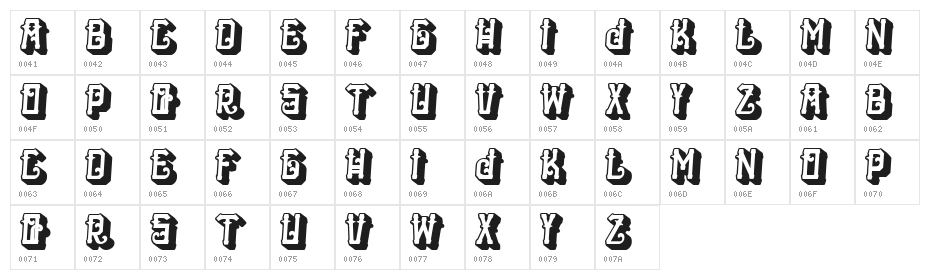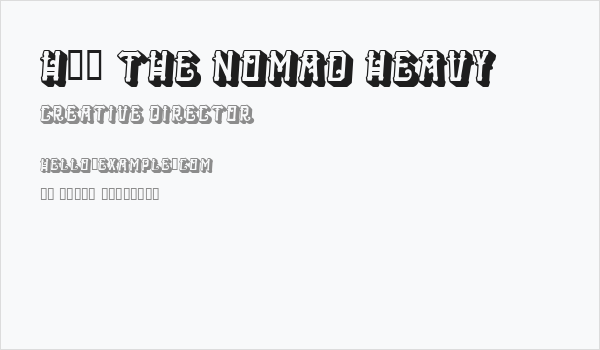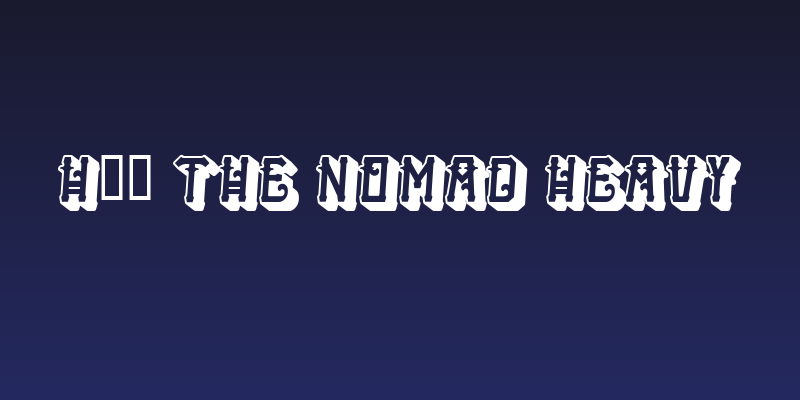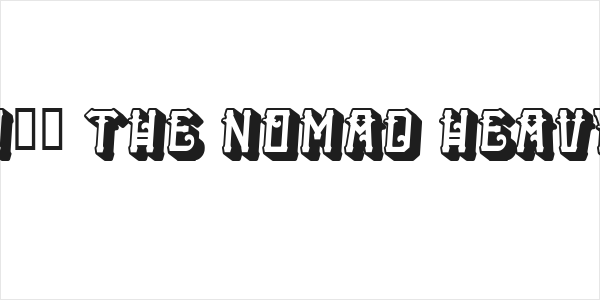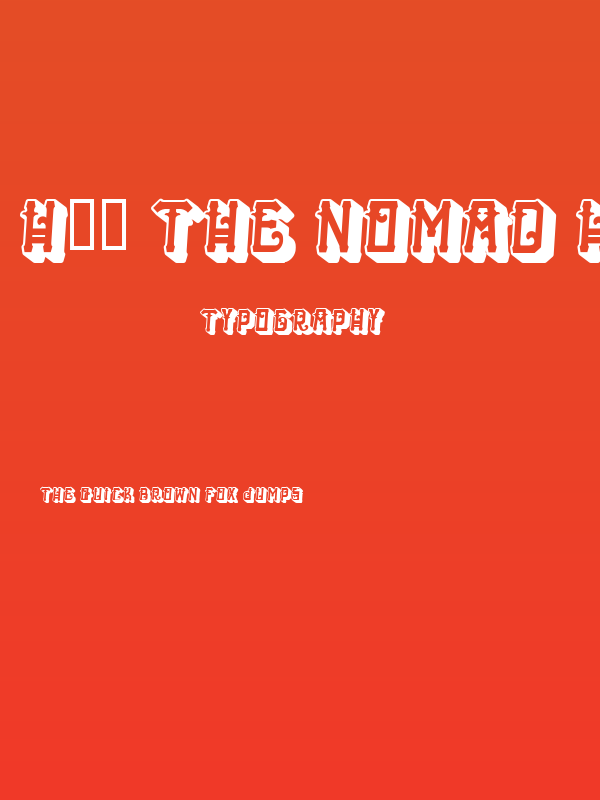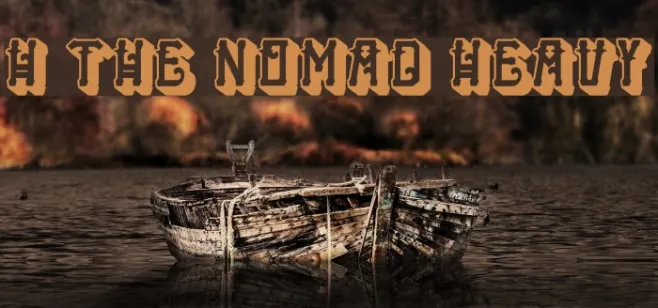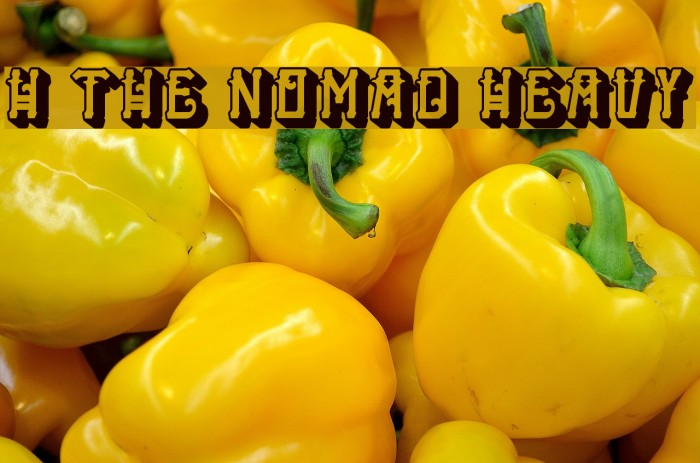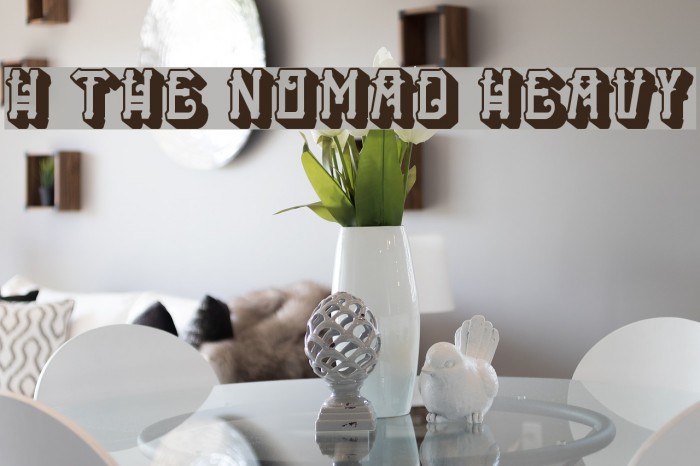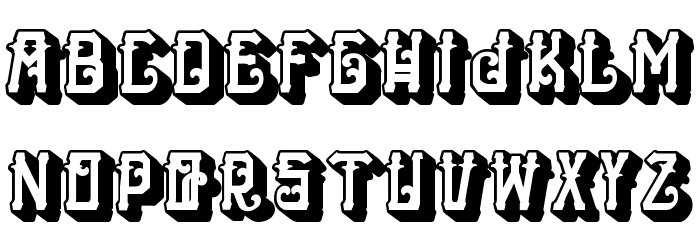
H74 The Nomad Heavy Font
H74 The Nomad Heavy Description
This font features a bold, three-dimensional style with a strong, shadowed effect that gives it a striking and impactful appearance. The characters are designed with a blocky, geometric structure, and each letter is outlined with a thick border that enhances its visual depth. The font's style is reminiscent of vintage signage or retro poster designs, making it ideal for projects that require a bold and attention-grabbing typeface. The uppercase and lowercase letters maintain a consistent design, and the absence of special characters suggests a focus on simplicity and clarity. The font's heavy weight and distinct shadowing make it particularly suitable for headlines, logos, and other display purposes where a strong visual presence is desired.
| Overall Style | Vintage |
| Proposed Projects | Ideal for vintage-themed posters, logos, headlines, and any design requiring a bold, eye-catching typeface. |